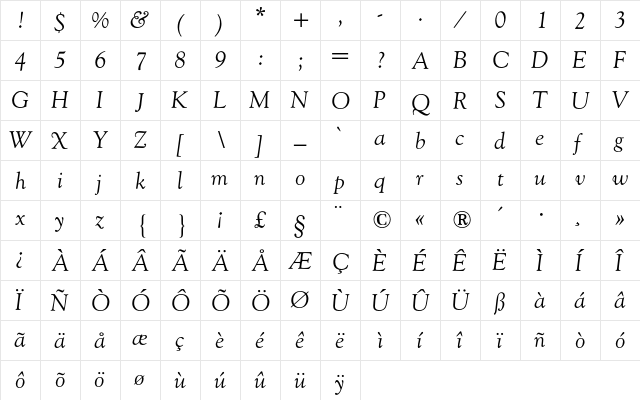
Goudy Old Style BQ Regular
Design Context for Goudy Old Style BQ Typeface
Goudy Old Style BQ offers clean, dependable letterforms without strong stylistic allegiance, making it a practical choice for designers who need flexibility.
Pro Tip: Use Goudy Old Style BQ in both headline and body roles to test its range before committing to a single application.